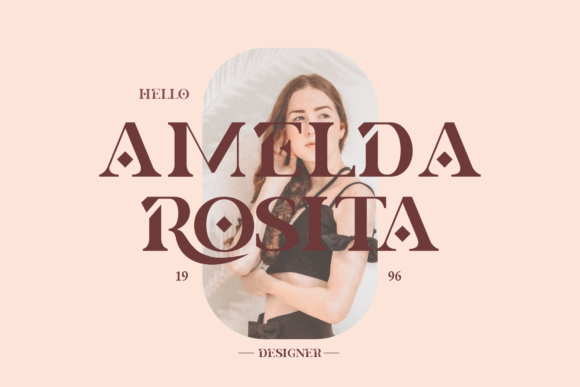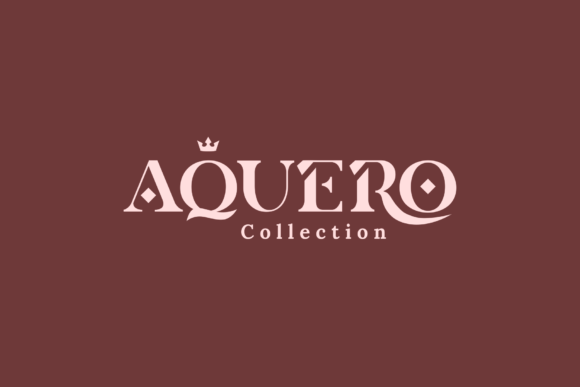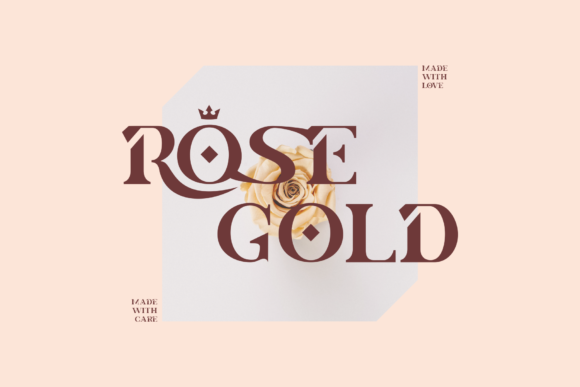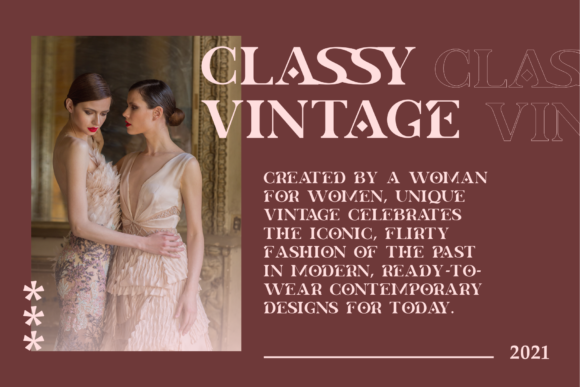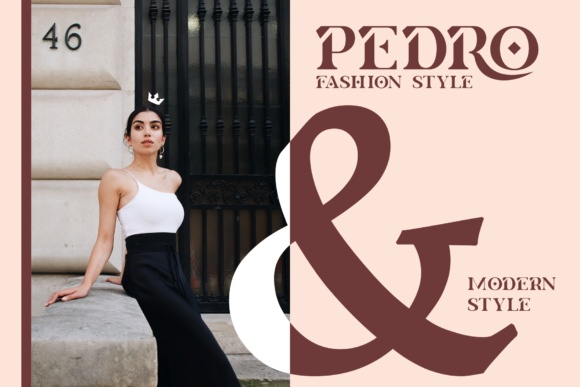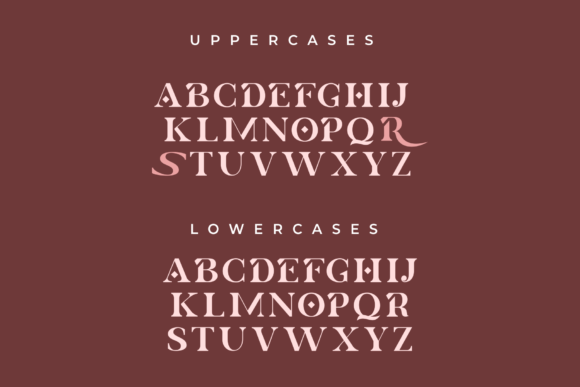
Introduction to Rosok Font
Rosok is a modern vintage serif font with a perfect fit for many projects such as: magazines, logos, branding, photography, invitations, wedding invitation, quotes, blog header, poster, advertisements, postcard, book, websites, titles and so many more.
Rosok is a modern vintage serif font with a perfect fit for many projects such as: magazines, logos, branding, photography, invitations, wedding invitation, quotes, blog header, poster, advertisements
Key Features of Rosok Font